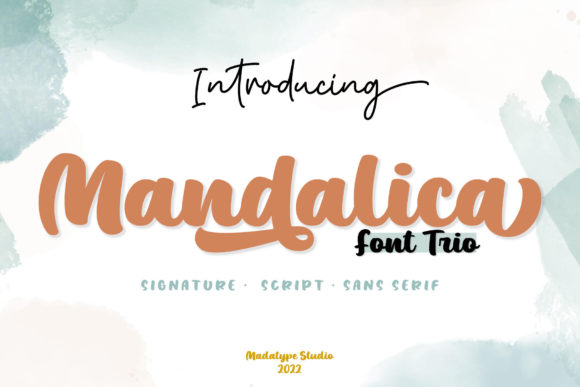
**Mandalica Font: The Enchanting Handwritten Trio That Will Captivate Your Designs**
In a world of ordinary fonts, Mandalica emerges as a breath of fresh air, a symphony of style, and a celebration of creativity. This exquisite handwritten trio font, meticulously crafted by Madatype Studio, is not just a collection of letters; it's an invitation to embark on a whimsical journey where imagination knows no bounds.
**Unleash Your Inner Artist with Mandalica's Playful Charm**
Mandalica's playful personality shines through in every stroke, every curve, and every delicate flourish. It's a font that dances across your screen, captivating you with its lively energy and making your designs come alive. Whether you're creating whimsical invitations, heartfelt greeting cards, or enchanting social media posts, Mandalica will transform your words into works of art.
**Discover a World of Versatility with Mandalica's Diverse Characters**
With Mandalica, versatility is an understatement. This font family boasts a treasure trove of glyphs and swashes, accessible with ease thanks to its PUA encoding. Experiment with different combinations to create unique and eye-catching designs that will leave your audience spellbound. From elegant wedding invitations to playful birthday cards, Mandalica adapts seamlessly to any project, adding a touch of magic wherever it goes.
**Elevate Your Designs with Mandalica's Timeless Beauty**
Mandalica is more than just a font; it's a timeless masterpiece that will add a touch of sophistication to any project. Its graceful lines and elegant curves evoke a sense of nostalgia, transporting you to a bygone era of romance and charm. Use Mandalica to create stunning logos, enchanting branding materials, or heartfelt personal letters that will leave a lasting impression.
**Experience the Joy of Creation with Mandalica**
Mandalica is not just a tool; it's an experience. With this captivating font, you'll rediscover the joy of creation, letting your imagination soar to new heights. Whether you're a seasoned designer or just starting your creative journey, Mandalica will ignite your passion and help you produce designs that truly shine.
**Mandalica: The Perfect Choice for Cricut Crafters**
For those who love to create with Cricut, Mandalica is an absolute dream. Its smooth, flowing lines cut beautifully, ensuring intricate and precise designs every time. Create stunning decals, personalized home décor, or unique gifts that will make your loved ones smile. With Mandalica, your Cricut projects will be the envy of all who see them.